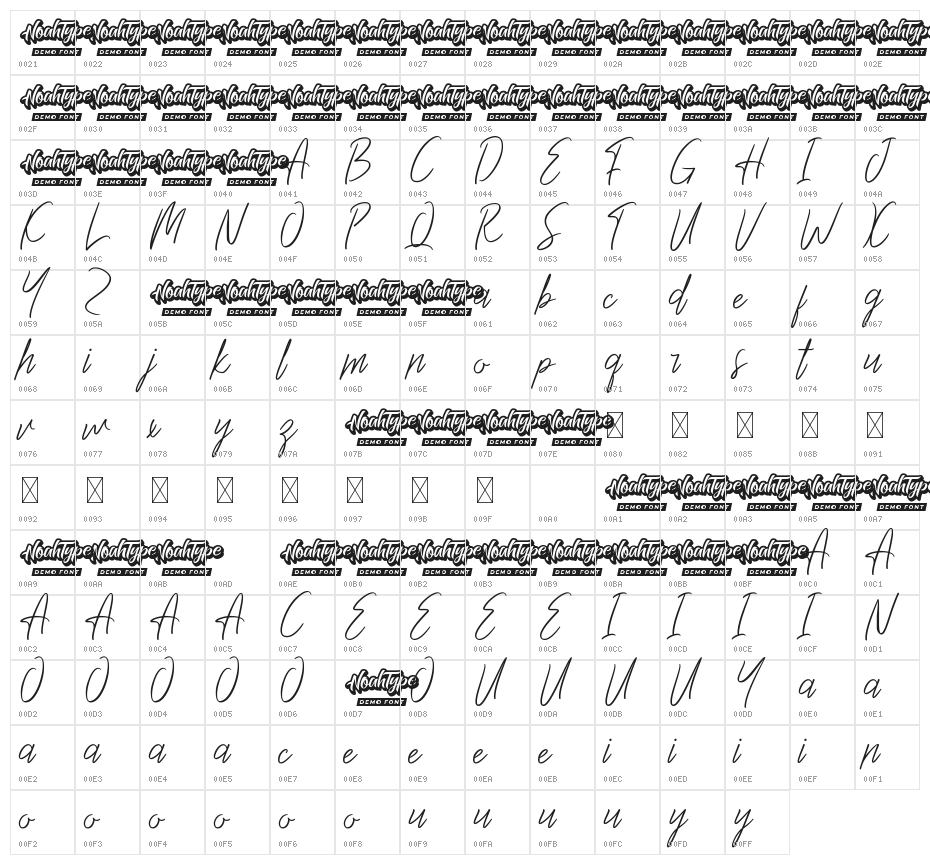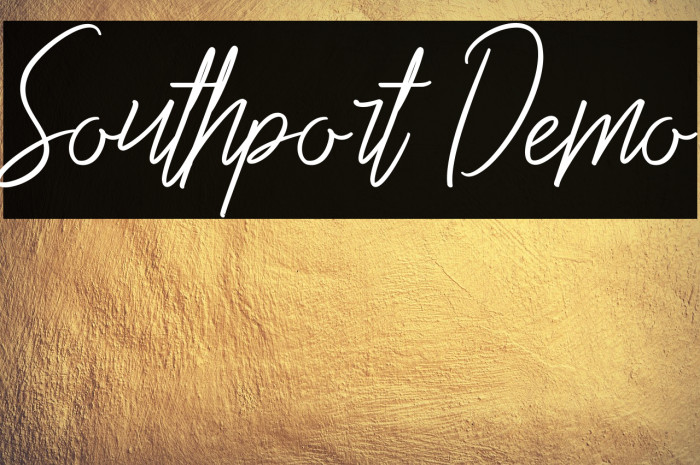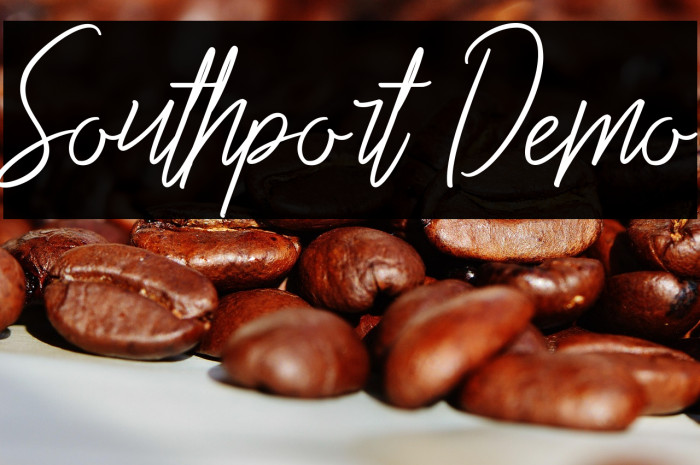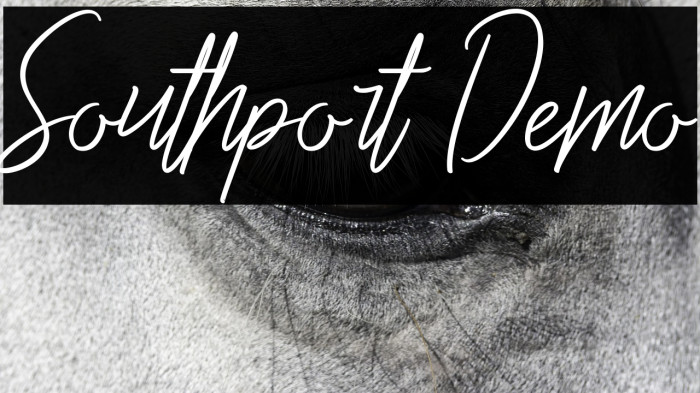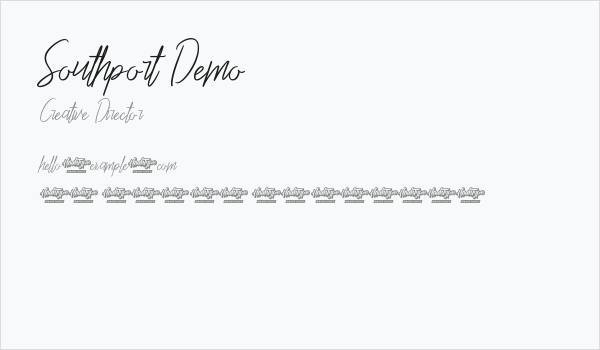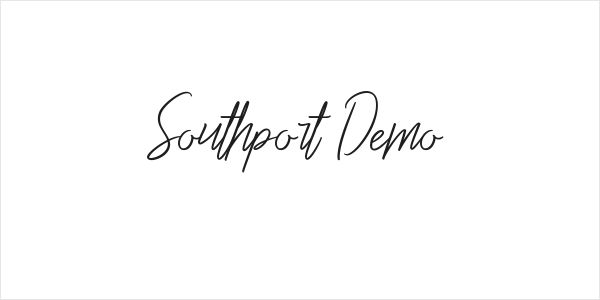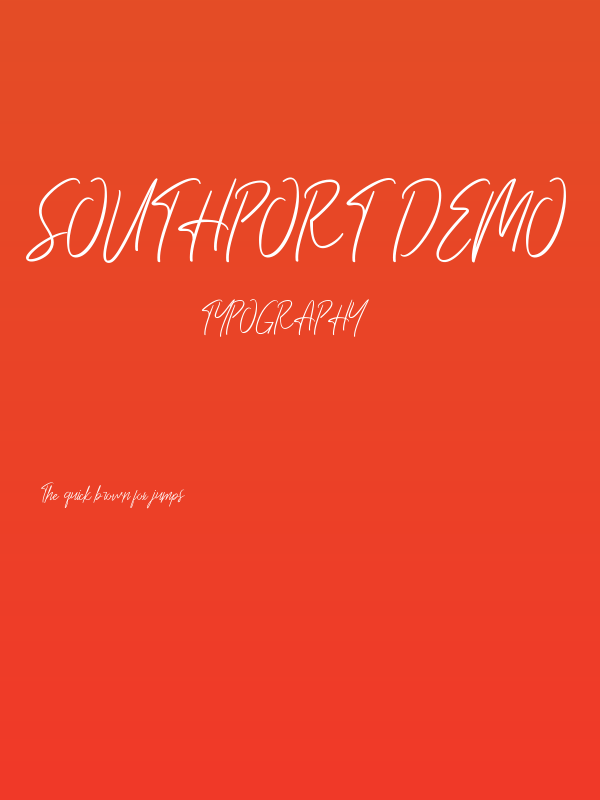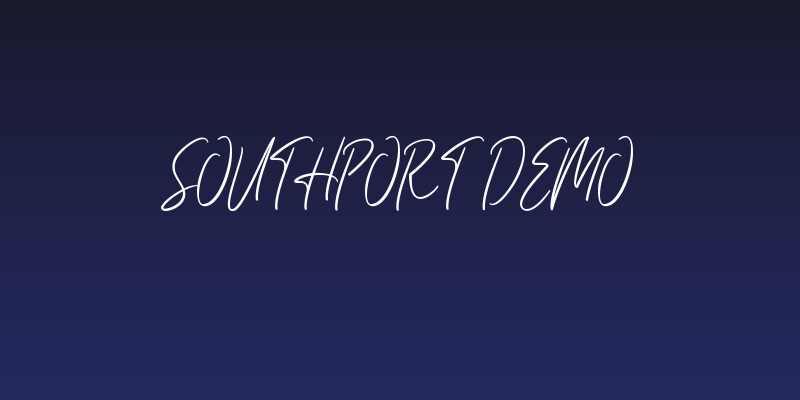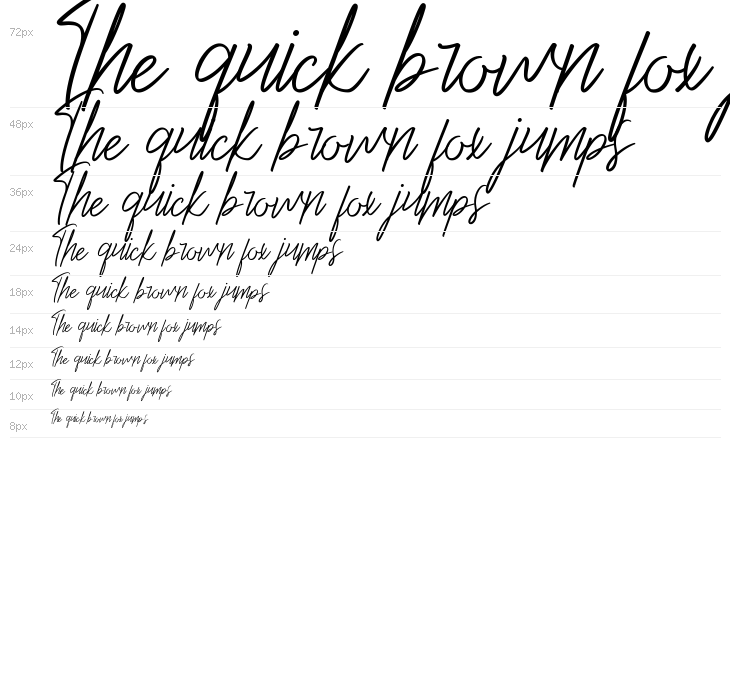
Southport Demo Font
Southport Demo Description
This font features a dynamic and fluid handwritten style, characterized by its elegant and flowing script. The letters are connected with smooth, sweeping strokes that give it a natural and organic feel. The uppercase letters are tall and slightly slanted, while the lowercase letters maintain a consistent rhythm with a slight slant, enhancing the cursive appearance. The font exudes a sense of sophistication and personal touch, making it ideal for projects that require a humanistic and artistic flair. Its unique style is both expressive and legible, suitable for a variety of creative applications.
| Proposed Projects | Ideal for wedding invitations, personal branding, greeting cards, and artistic projects. |